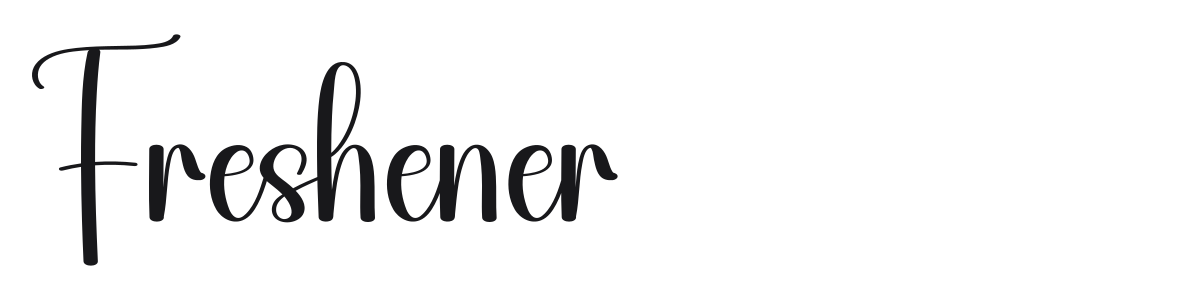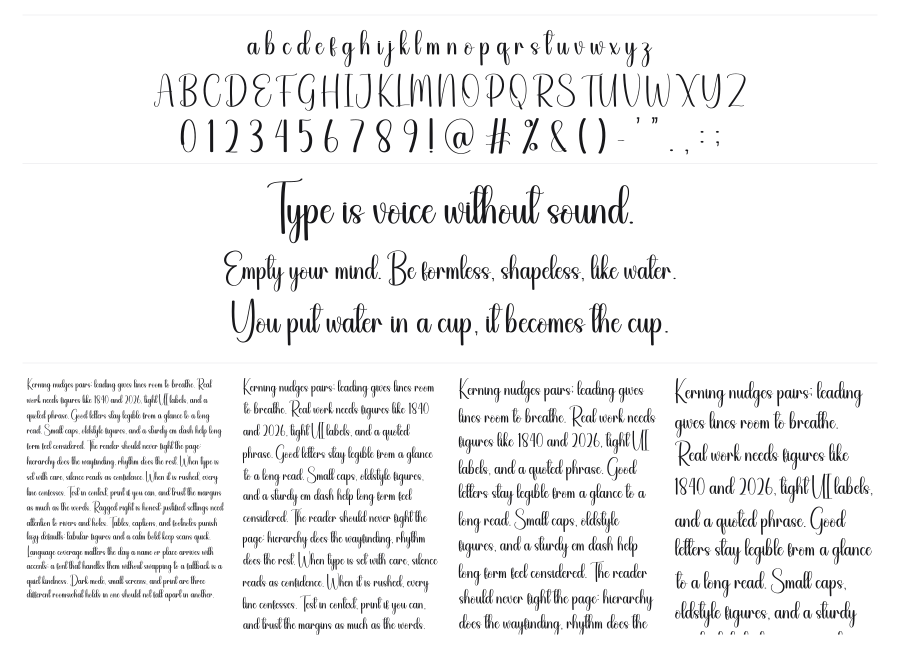
Freshener
Freshener is a sweet, bouncy casual script with flowing connected strokes and generously looped ascenders. The moderate stroke contrast and lively rhythm give it a hand-penned warmth that works well on wedding invitations, greeting cards, and packaging. It leans romantic without feeling stiff.